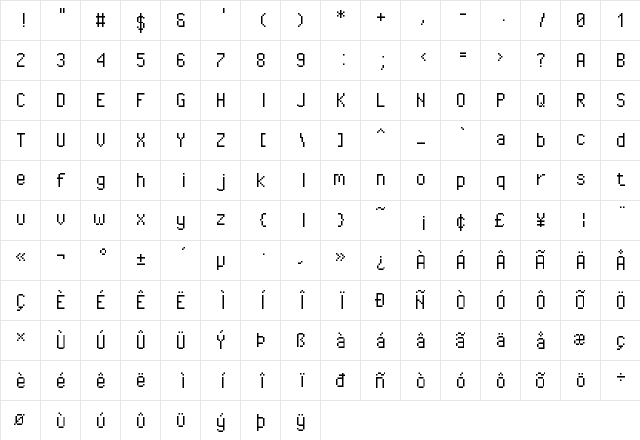
Pixel Operator Mono Regular
| Foundry | The Grandoplex Project |
| Designer | Jayvee Enaguas (HarvettFox96) |
Design Context for Pixel Operator Mono Typeface
Pixel Operator Mono is rooted in pixel-grid construction, making it a natural fit for game UI, retro computing aesthetics, and digital nostalgia projects.
A natural choice for retro game titles, chiptune music branding, 8-bit UI, and digital nostalgia projects.
Pro Tip: Pair Pixel Operator Mono with flat colour palettes and simple geometric UI elements to reinforce its digital aesthetic.